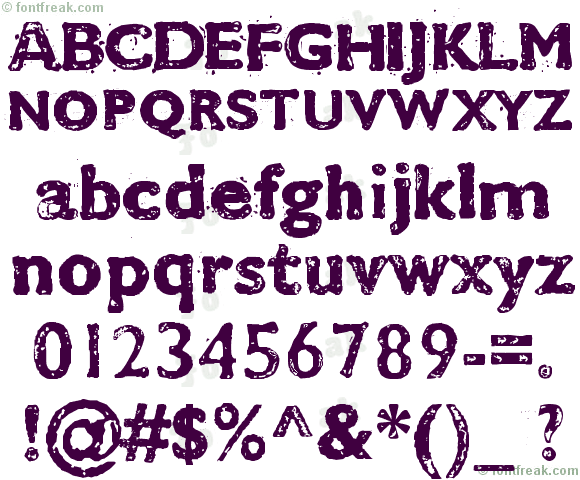
CMDestroyTwo
CMDestroyTwo, designed by Charly Masci, is a striking display font that falls within the decorative category. With its bold, distressed appearance, this font captures attention while conveying a sense of raw energy and creativity. The stroke weight is thick and robust, offering a strong visual presence, while the varying contrast contributes to its unique character. The spacing is deliberately loose, enhancing readability while maintaining an edgy aesthetic that aligns perfectly with modern design trends.
This font is particularly well-suited for a variety of creative applications. It excels in settings like movie posters, where its impactful style can evoke emotions and draw viewers in. Additionally, CMDestroyTwo is an excellent choice for album covers and promotional materials, allowing artists to showcase their work in a visually captivating manner. Its rugged charm also makes it ideal for use in restaurant menus, especially for establishments aiming for a casual, urban vibe. Furthermore, graphic designers and content creators will find this font perfect for social media graphics and branding projects, where a bold statement is essential.
The target audience for CMDestroyTwo includes graphic designers, small business owners, and content creators who are looking to make a memorable impression. Its freeware license makes it accessible to those on a budget, while its distinct style appeals to anyone seeking to add a unique flair to their projects.
What sets the CMDestroyTwo font apart is its ability to blend artistic expression with practicality. It stands out not only for its visual appeal but also for the versatility it offers in various design contexts. With a CMDestroyTwo font free download available, this font presents a fantastic opportunity to elevate your creative work with a distinctive touch.